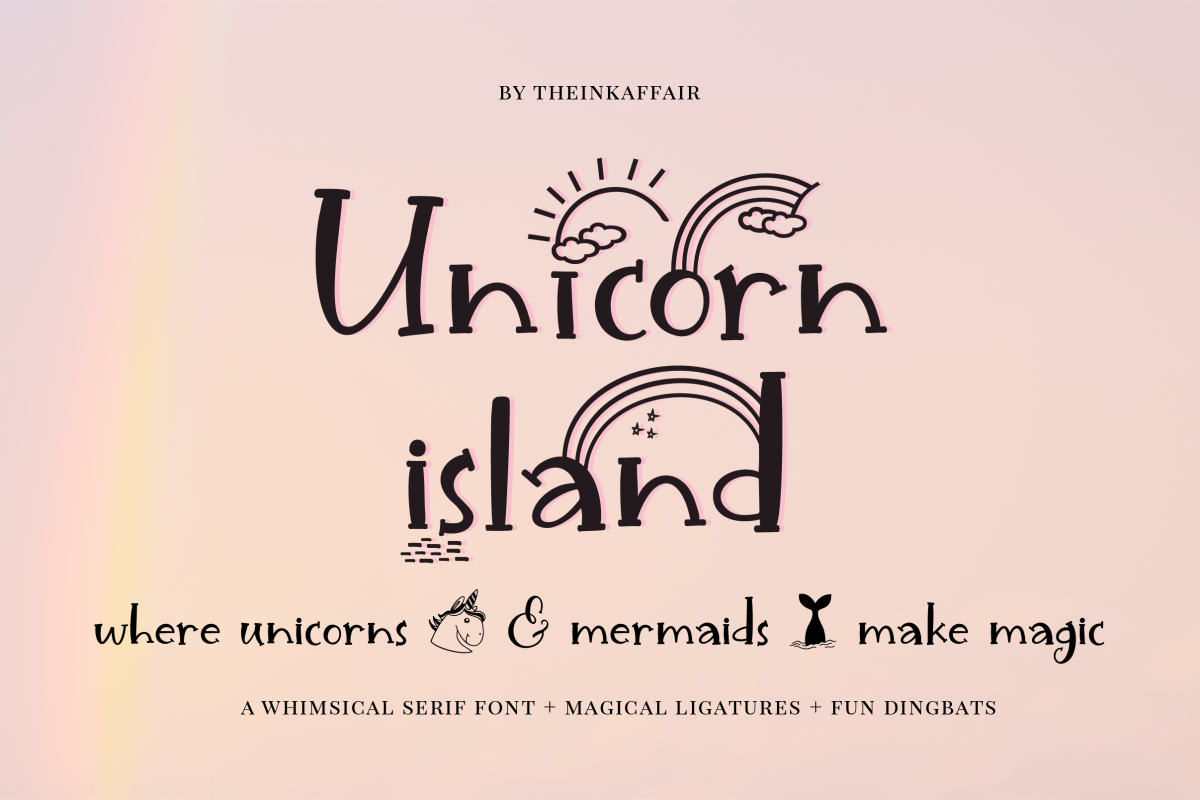
Unicorn Island Font and Dingbats
Introducing, Unicorn Island, a fun simple serif font with a pinch of magic!
The font in it's own is fun and whimsical and gets better when used with ligatures - there are over 30 of them!
Also comes with dingbats, which are available as a font file and also as lowercase alternates.